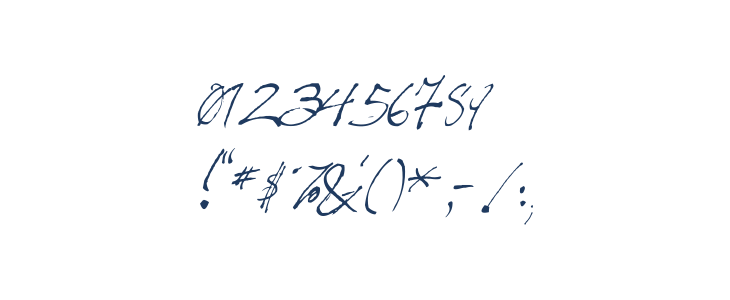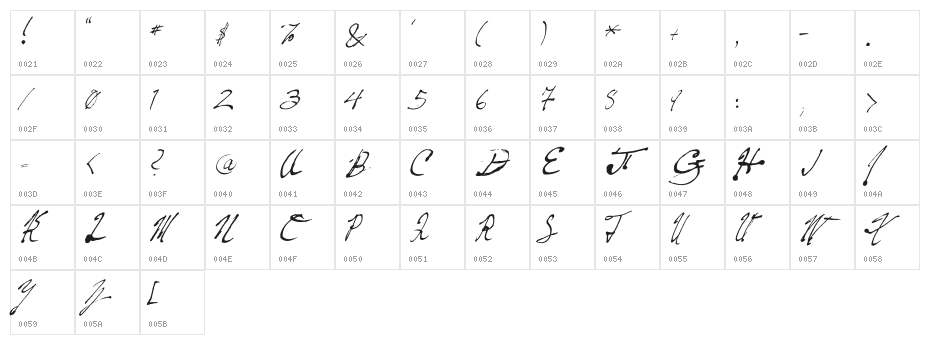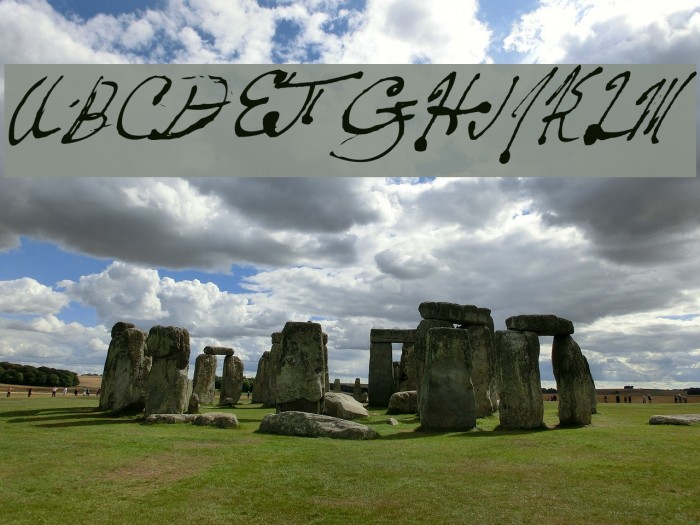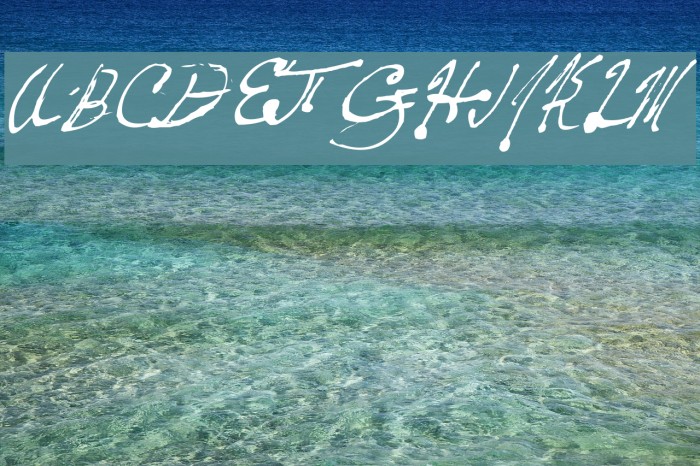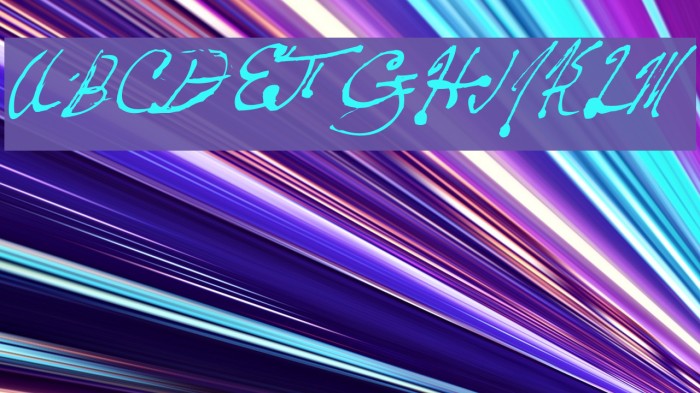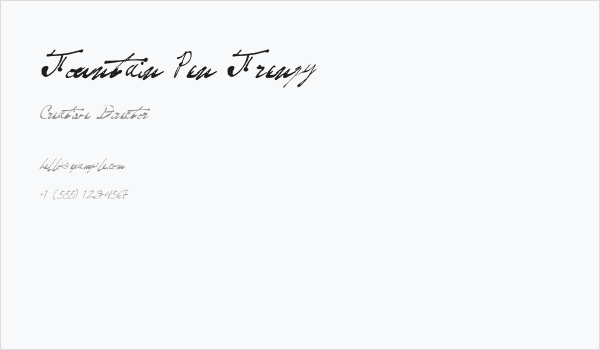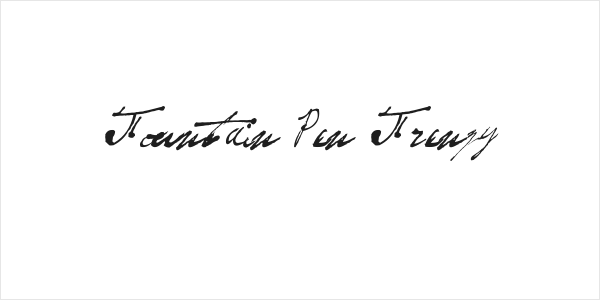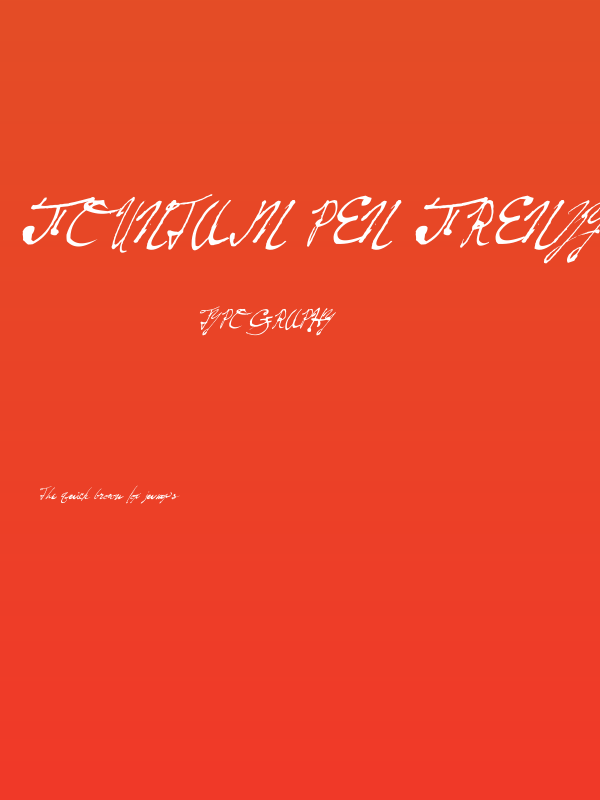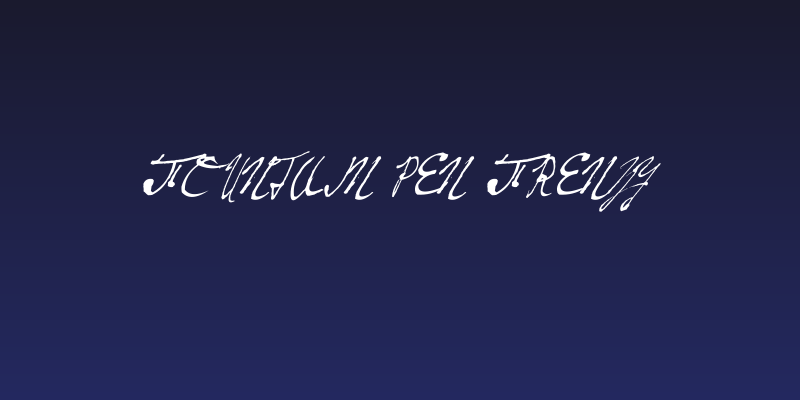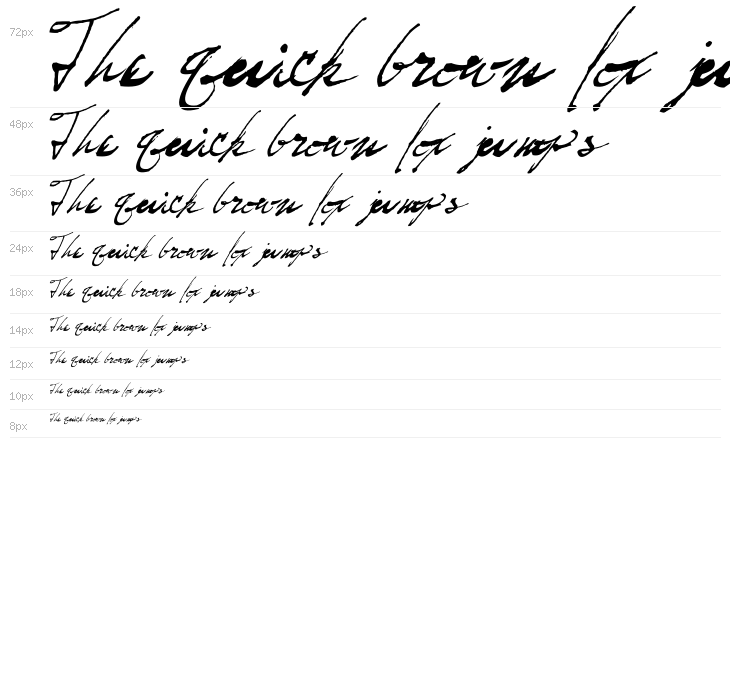
Fountain Pen Frenzy Font
Fountain Pen Frenzy Description
This font exudes a classic, handwritten style reminiscent of elegant calligraphy. The characters are fluid and connected, with a natural flow that mimics the strokes of a fountain pen. The uppercase letters are bold and expressive, while the lowercase letters maintain a graceful continuity. Numbers and special characters are crafted with the same attention to detail, ensuring a cohesive look throughout. The overall appearance is both sophisticated and artistic, making it suitable for projects that require a touch of refinement and personal flair.